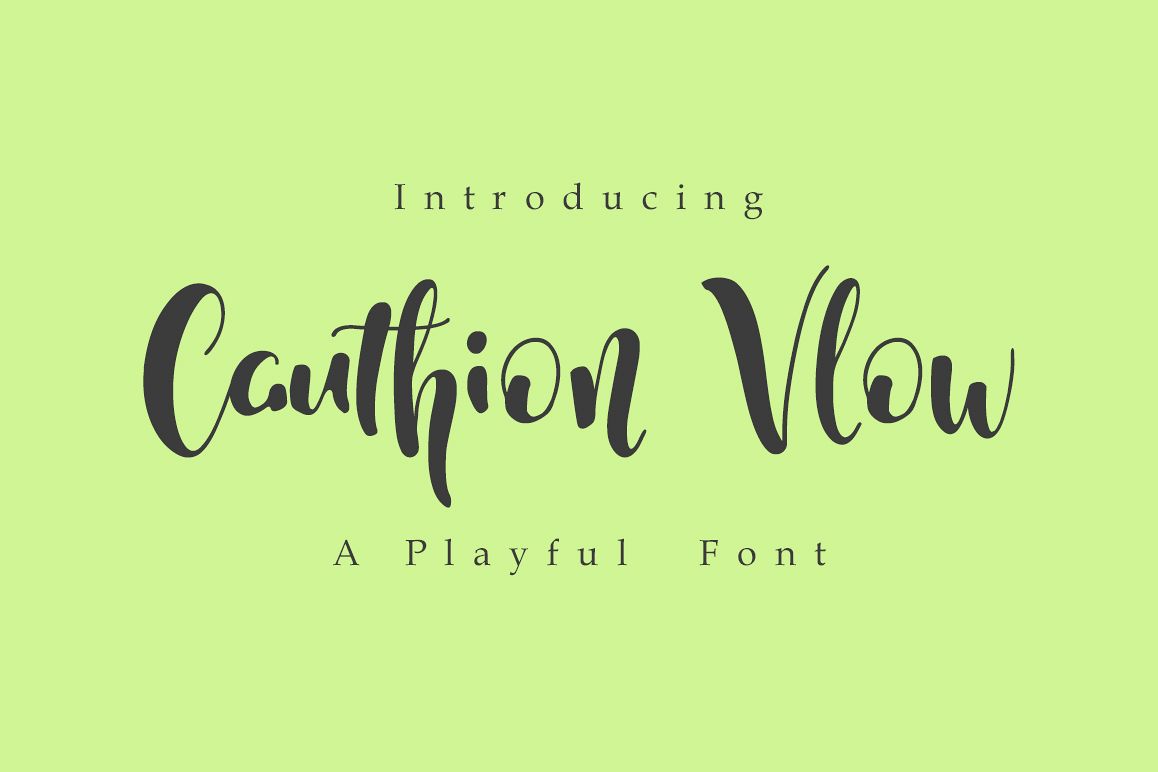
Cauthion Vlow
Cauthion Vlow is display font. With modern script style this font will perfect for many different project ex: quotes, blog header, poster, wedding, branding, logo, fashion, apparel, letter, invitation, stationery, etc.